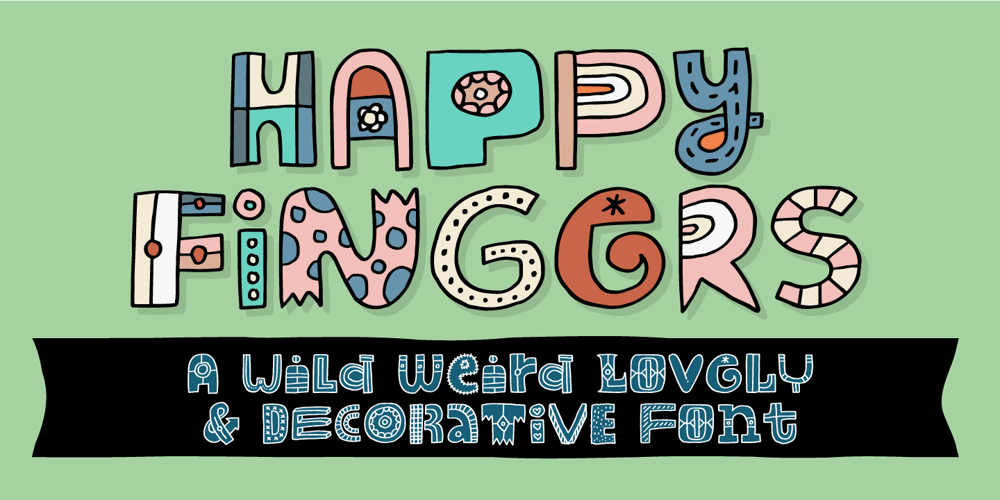
Happy Fingers Font Family was designed by Jakob Fischer and published by PizzaDude.dk. Happy Fingers contains 2 styles and family package options. Happy Fingers are a truly mad font! The font contains 10 different versions of each letter – and no two letters are the same – it’s a lovely mix of upper- and lowercase, serfifs and sans, grunge, comic, sci-fi, fantasy, computer … everything you can imagine. And they are all handmade! Of course there is multilingual support and I have even added a black version, for you to use as massive fill, or perhaps a cool shadow!Go crazy, go Happy Fingers!